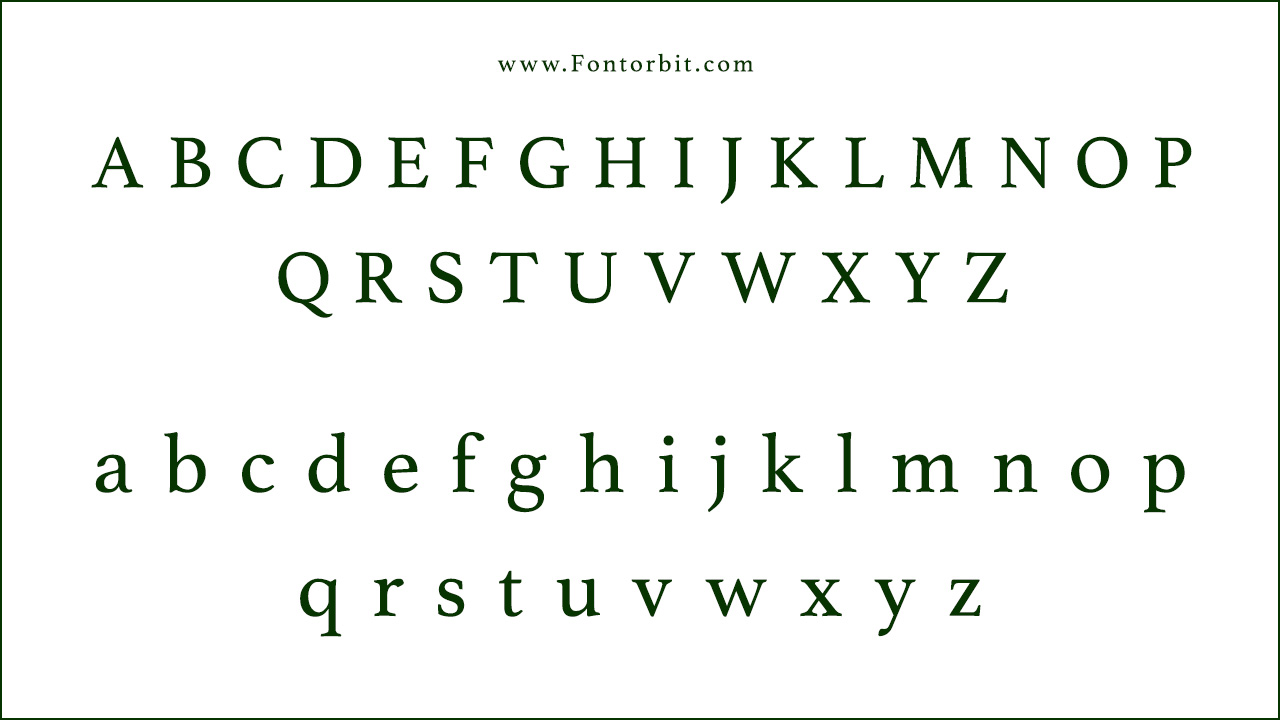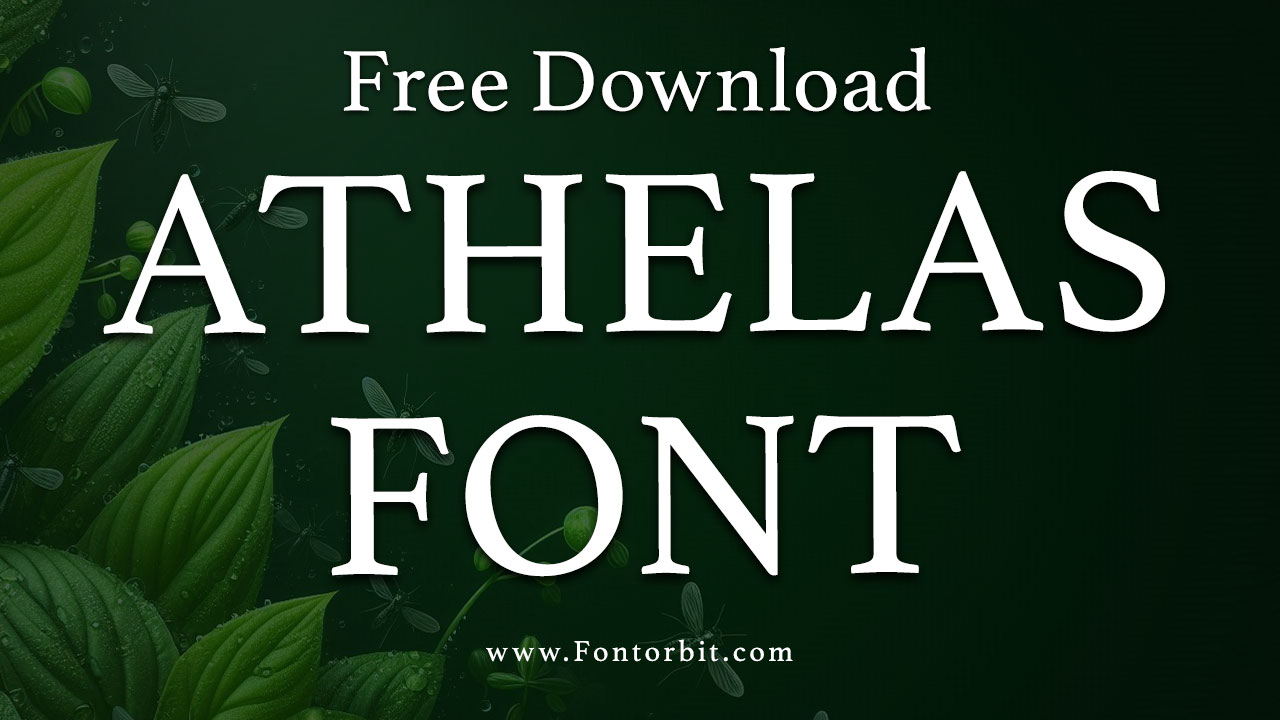
Veronika Burian and José Scaglione designed the Athelas serif typeface, which TypeTogether released in 2008. Inspired by British fine book printing and named after a healing herb from Tolkien’s The Lord of the Rings, Athelas reflects its influences. The font includes Cyrillic characters and, more recently, an Arabic extension.
Notable Uses Of Athelas
Athelas included as a system font in macOS and used as the default font in Apple Books, has won recognition for its excellence in body text design, securing the Granshan International Type Design Competition award in 2008. Designers use Athelas in finely crafted book editions and various digital and print media. Its elegant design suits text-heavy applications such as newsletters, advertisements, and book layouts.
Athelas offers a refined, classical aesthetic suitable for body text and various design projects. Its versatility and elegant design make it a valuable addition to any typographic toolkit.
1.What Is The Inspiration Behind Athelas Font?
Athelas is inspired by British fine book printing, reflecting a classic and elegant style suited for high-quality print and modern digital use.
2.What Are The Best Pairings For The Athelas Font In Design?
Athelas pairs well with classic serifs like Garamond for a cohesive look. For a modern touch, combine it with sans-serifs like Helvetica or Futura. These pairings enhance readability and create a balanced visual appeal.
3.What Are The Benefits Of Using Athelas Font In Web Design?
Athelas Font offers graceful serifs and high-quality printing conditions, making it ideal for web design. It maintains readability and elegance even in digital formats and is well-suited for creating documents and online content with typographic silence.
4.What Is The Readability Of Athelas Font?
Athelas Font is highly readable due to its design, which allows for high-quality printing conditions and typographic silence. Its serif structure and clear letterforms ensure legibility in various text sizes and formats.